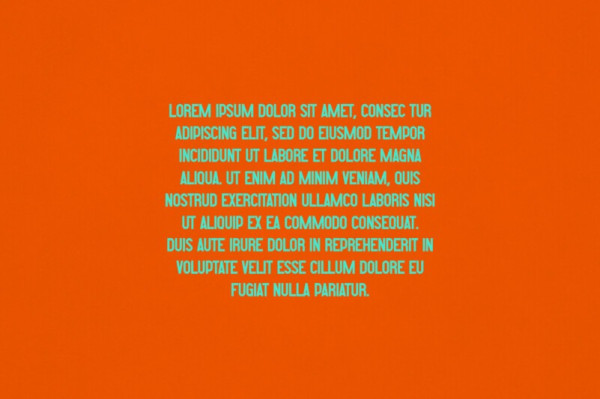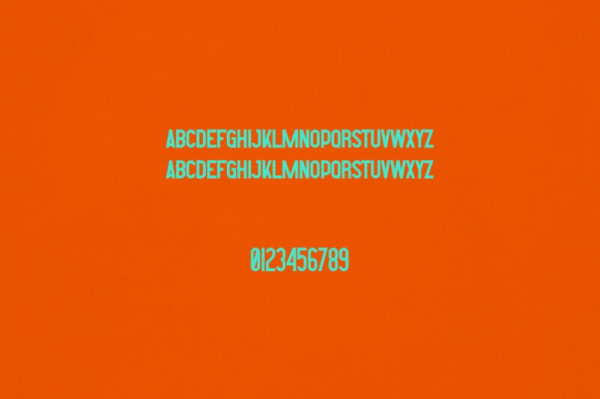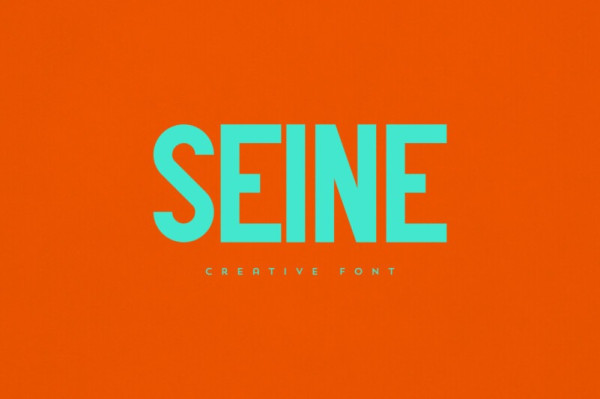
Seine Font
Seine Font is an elegant and versatile font that will make your typography truly unique! It will enchant every logo, branding, headline, or plain text!